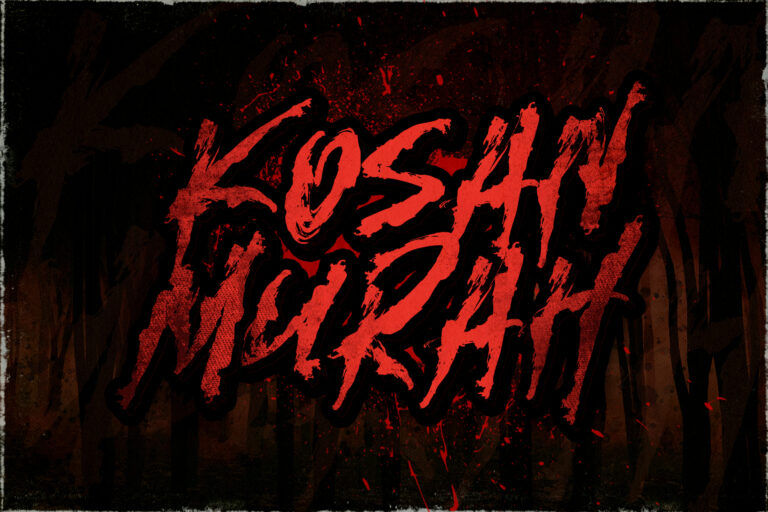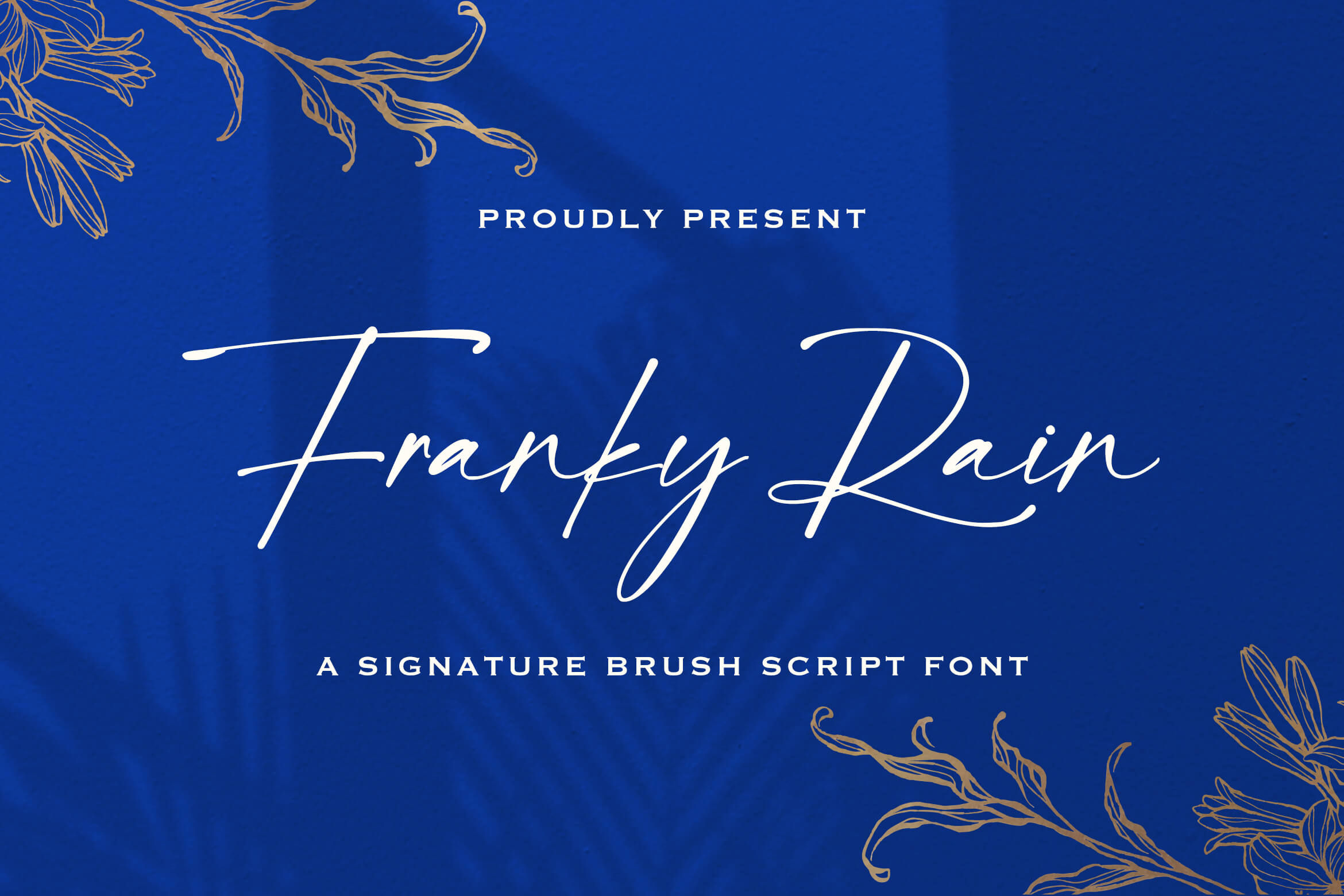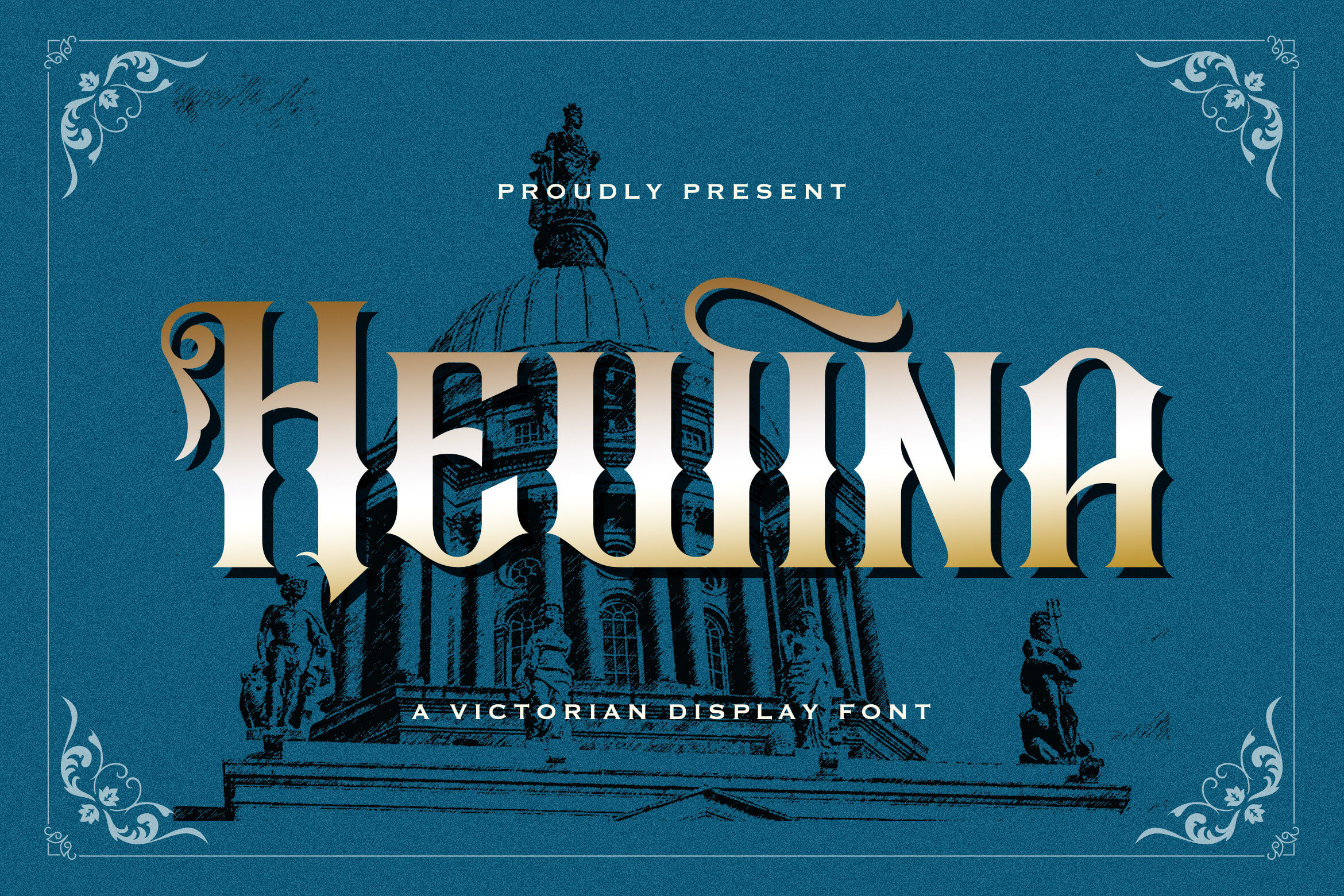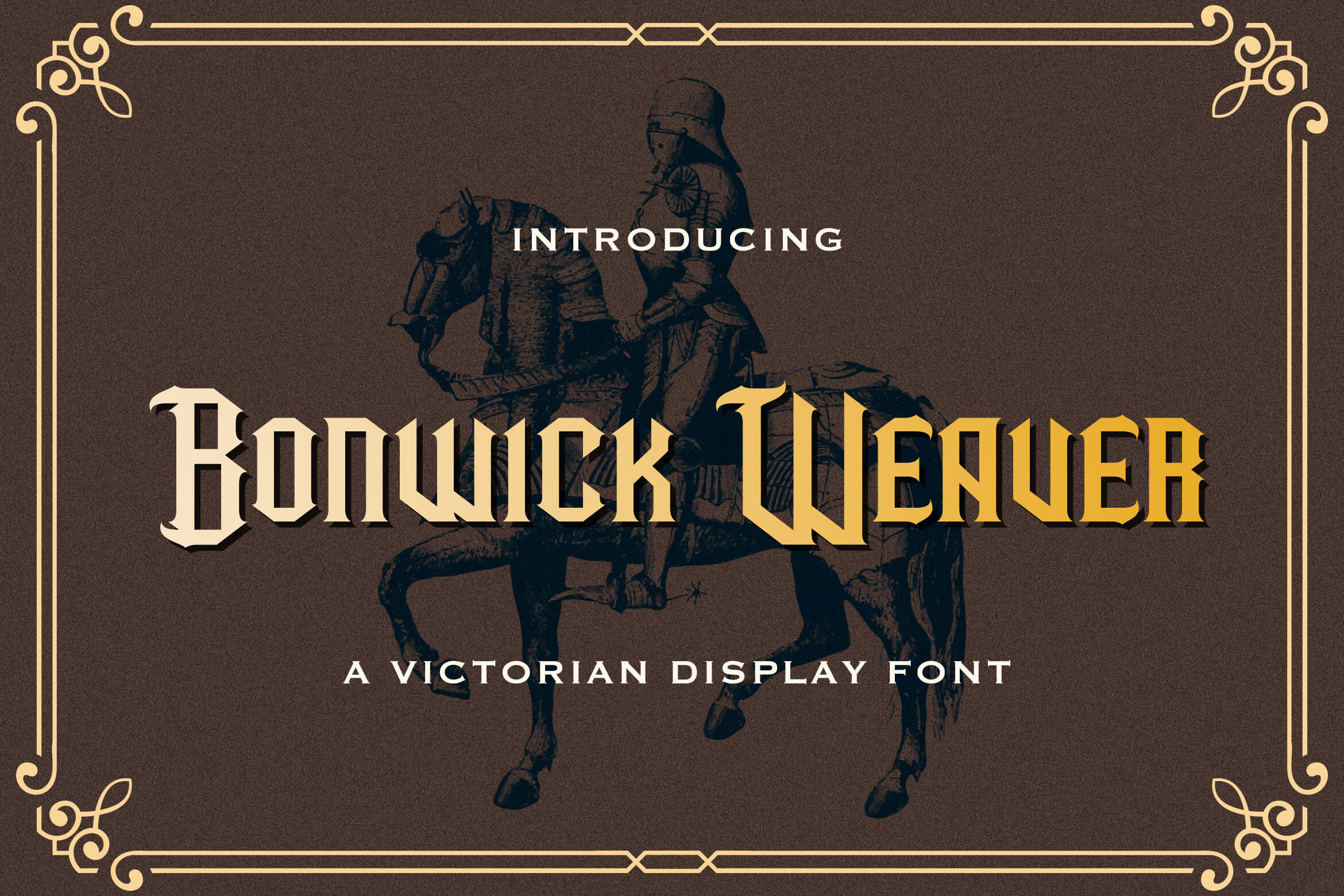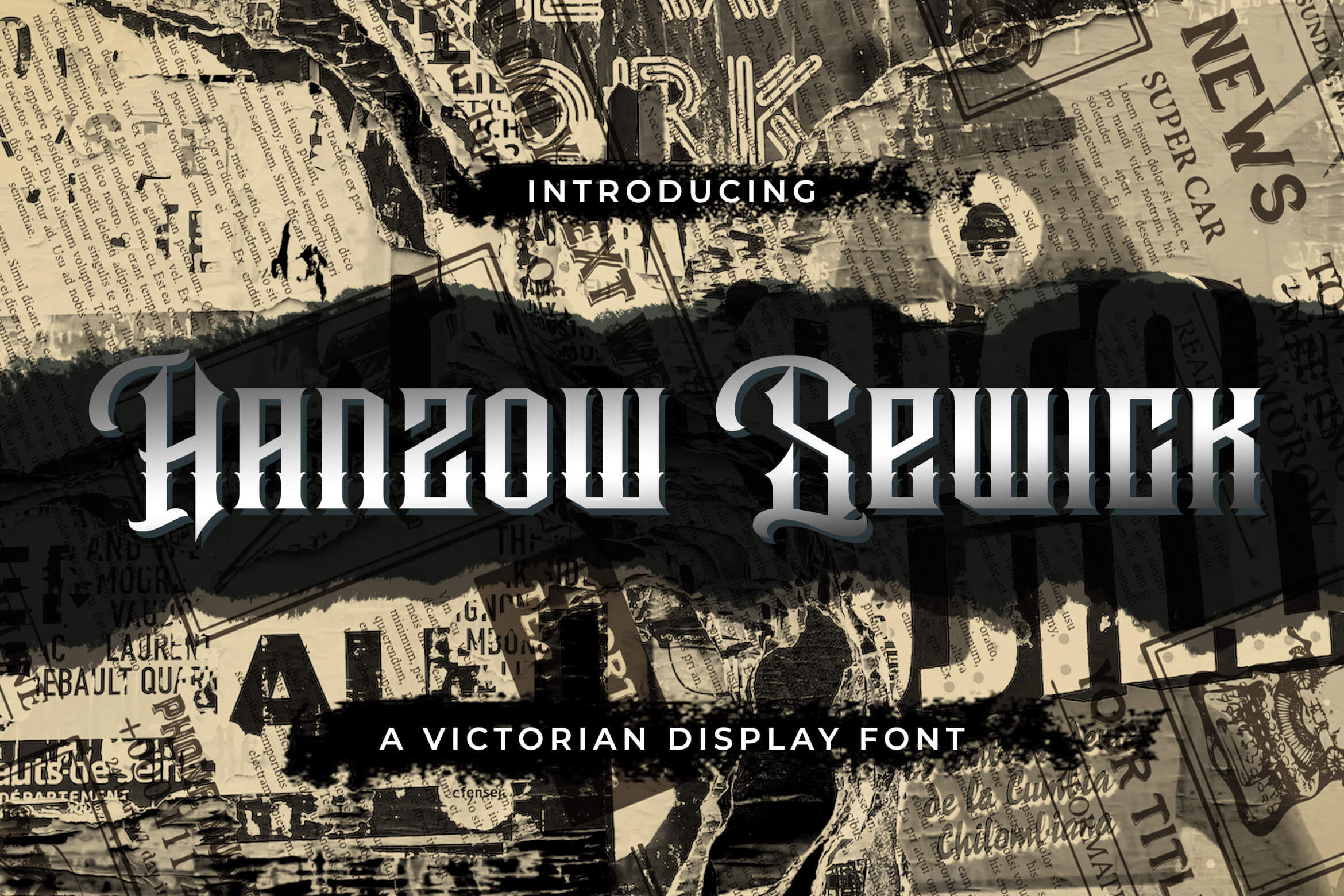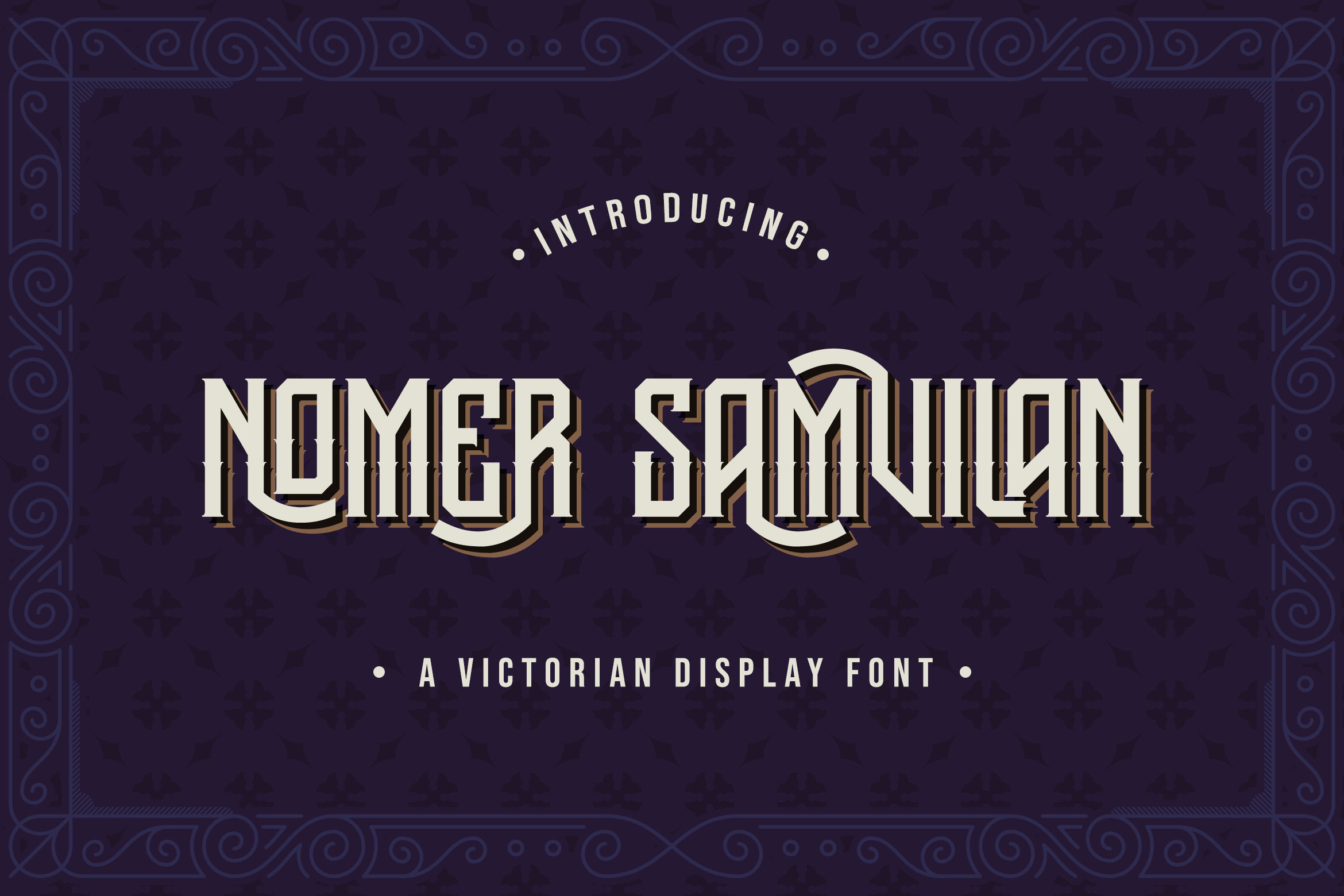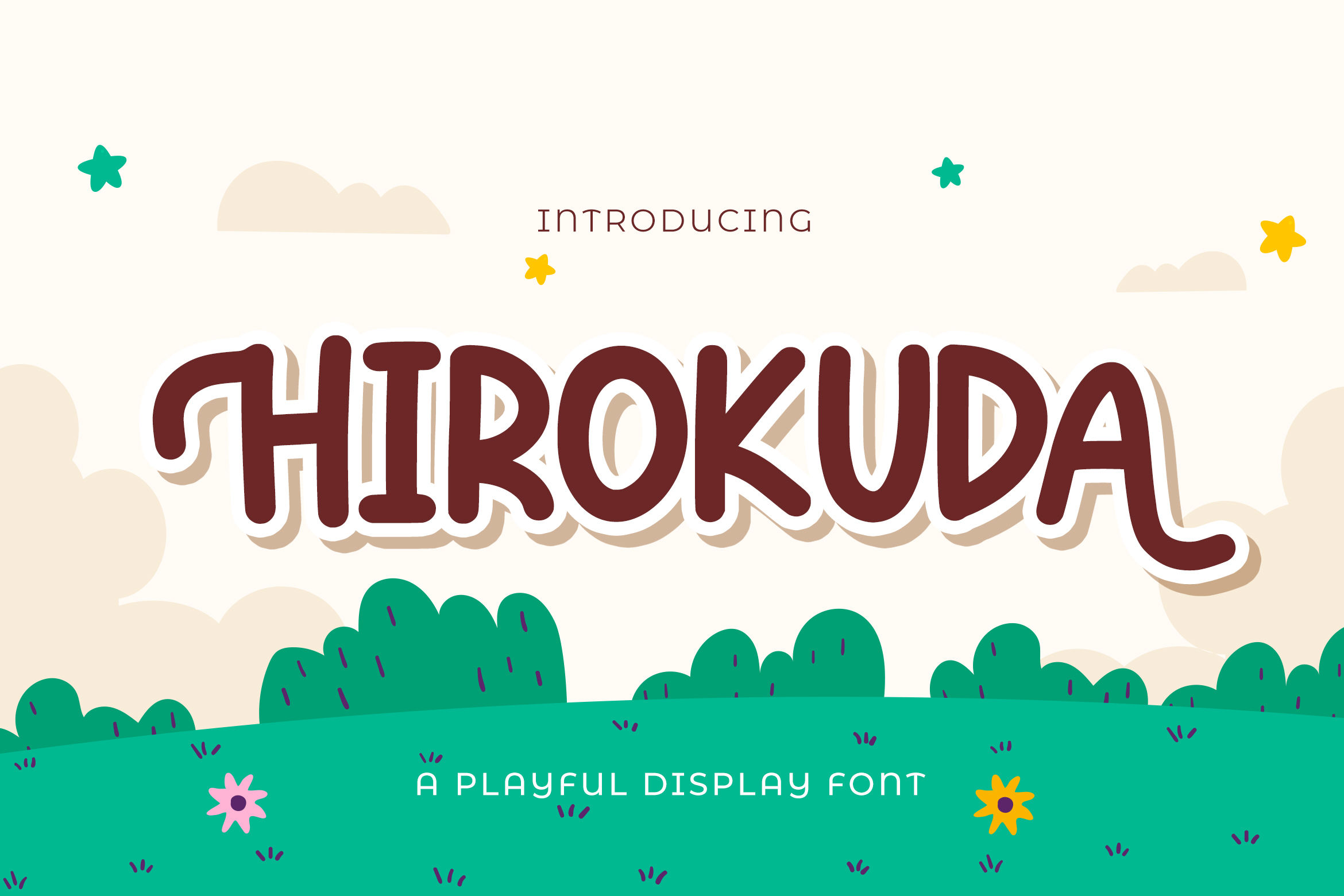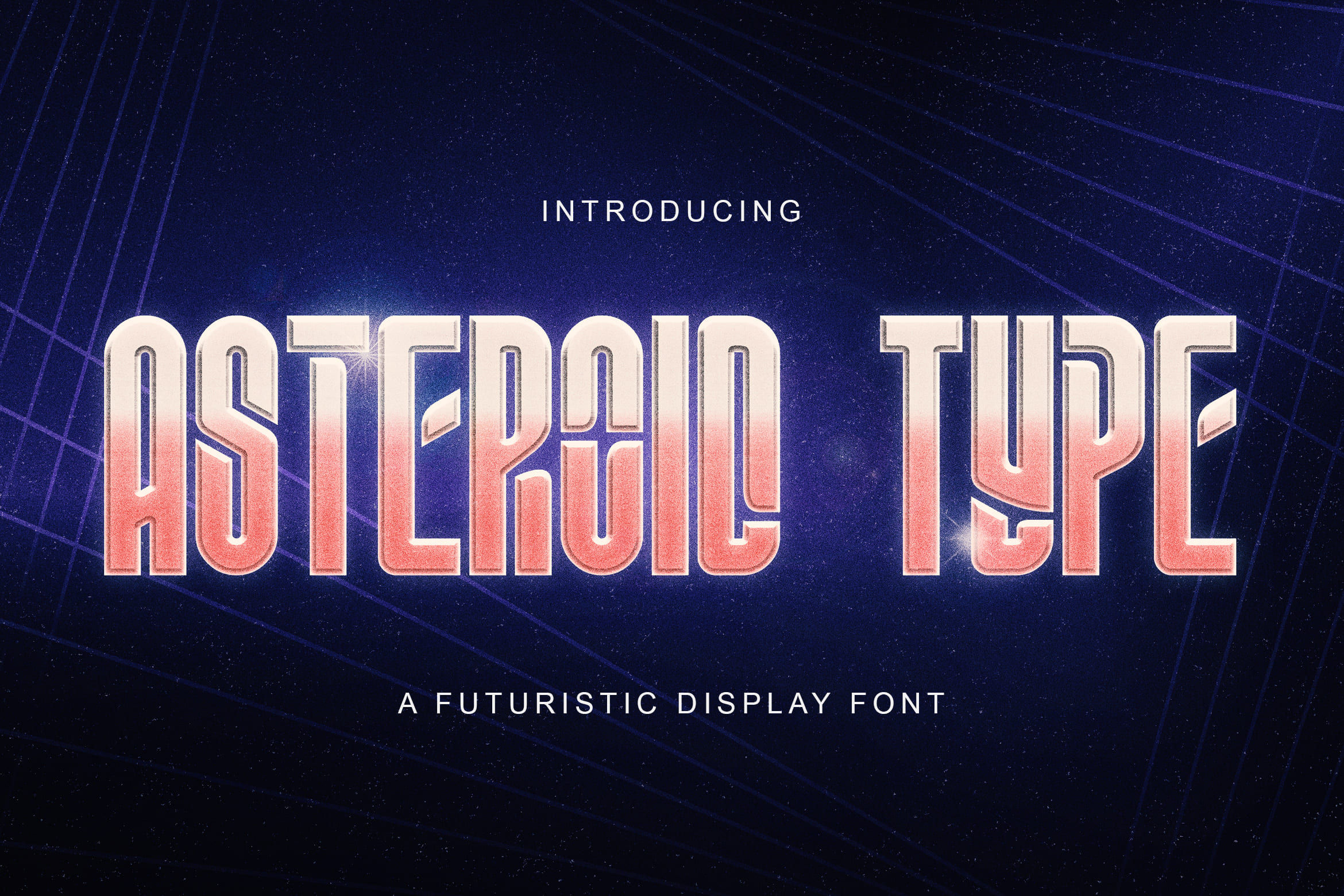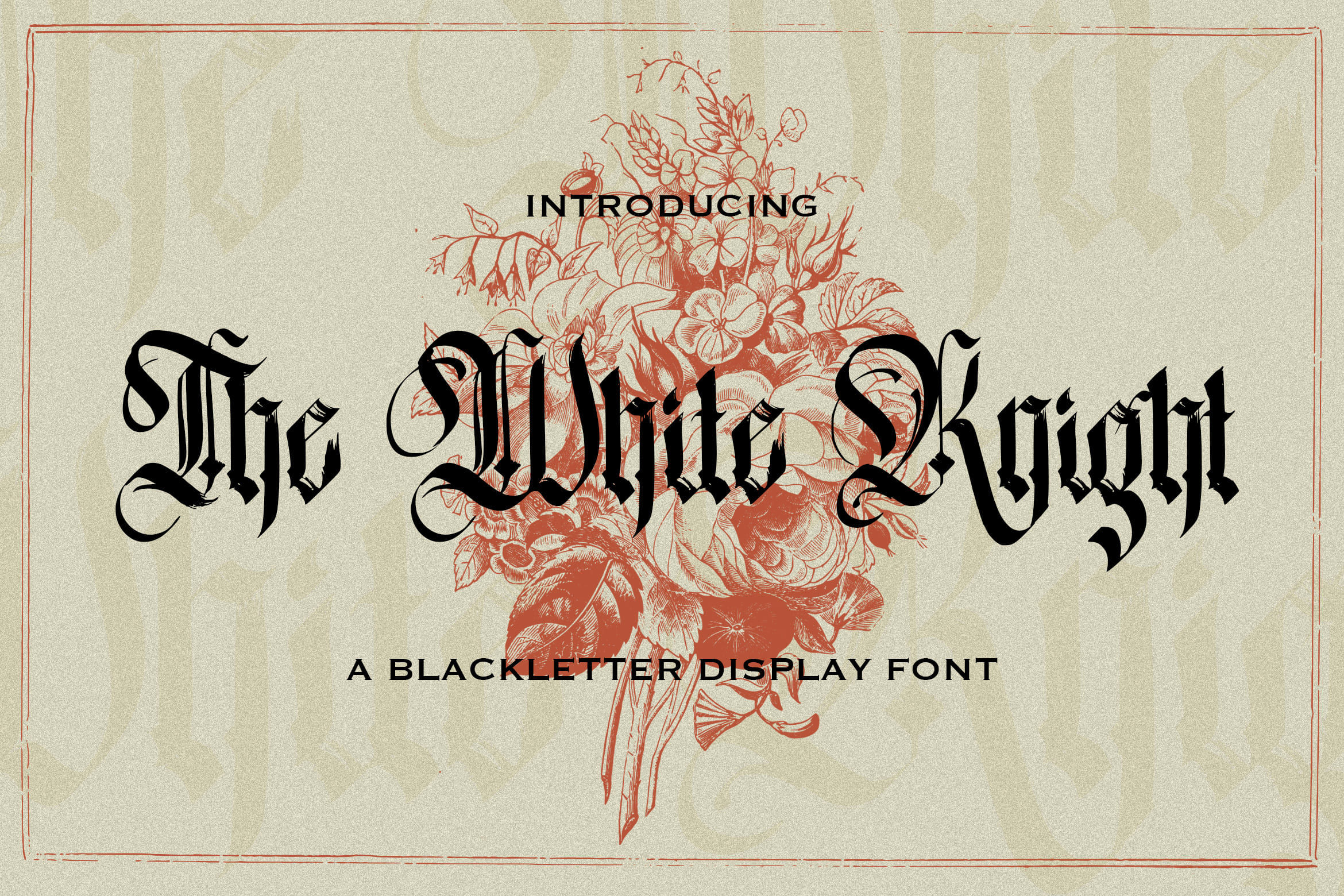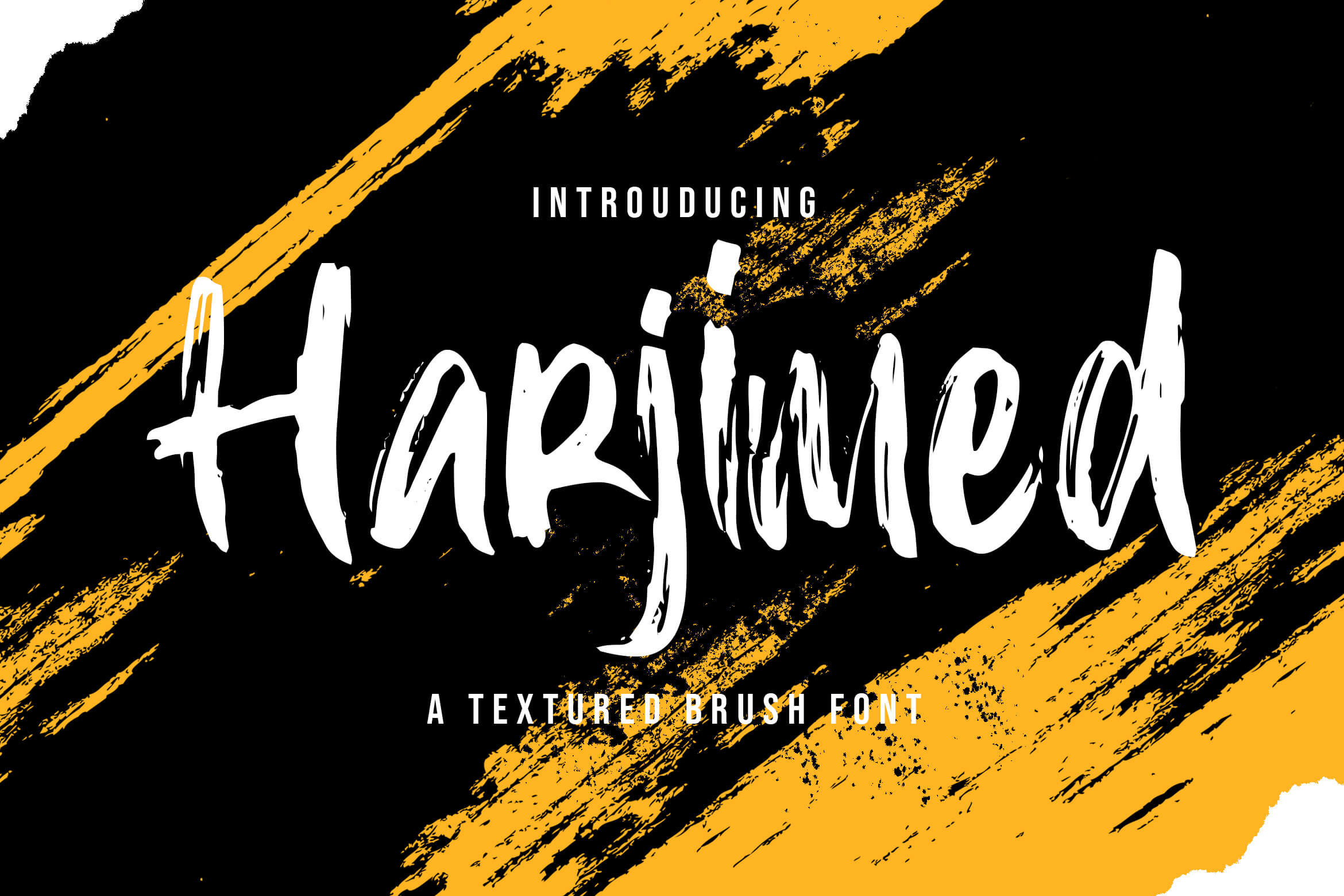
25 Stunning Fonts for Film Posters That Command the Screen
Film posters are often the first impression audiences have of a movie. That’s why fonts for film posters are just as important as the visuals themselves. According to Indiashelf, a film poster depicts what viewers can expect from the film. As a result, it helps create curiosity, build excitement, and encourage people to watch.
Key Takeaways
• Genre-specific typography strengthens emotional storytelling and enhances audience expectations before viewing begins.
• Carefully selected movie poster fonts improve branding consistency across promotional campaigns and media.
25 Best Fonts for Film Posters That Catch Attention
To inspire your next design, we have compiled twenty-five fonts for film posters that will enhance any cinematic project.
Font for Horror Movie Poster
1. Nightmare
Dripping with terrifying suspense, this bleeding typeface projects pure terror instantly because indie slashers and dark psychological thrillers seek visceral impact.
2. Kosan Murah
Unsettling and jagged strokes evoke urban legends and cursed boarding houses as they create an eerie atmosphere that immediately haunts your audience.
3. Jacmax
Heavy, distressed letterforms carved from pure shadow deliver maximum dread so that supernatural horror blockbusters and demonic possession trailers achieve unforgettable visual weight.
4. Nicedreams
Twisted surrealist lines mimic a terrifying descent into madness while they beautifully serve psychological nightmare narratives where reality blurs into pure chaos, and it stands out as one of the cool fonts for posters.
5. Harjimed
Sharp, gothic edges breathe ancient curses onto your key art because occult mysteries and ritualistic horror masterpieces require authentic historical doom.
Font for Sci-Fi Movie Poster
6. Asteroid Type
Futuristic geometric construction echoes deep space exploration and gives your outer-space epic a sleek interstellar aesthetic that captivates tech-savvy audiences.
7. Super Punch
Bold mechanical angles exude high-octane cyberpunk rebellion because dystopian action flicks and robotic warfare sagas demand aggressive futuristic energy.
8. Armygedon
Sturdy stencil silhouettes radiate military precision and post-apocalyptic survival since interstellar combat narratives and alien invasion blockbusters rely on authoritative visual dominance.
9. Super Guardian
Armored metallic glyphs project invincible defense systems as they brilliantly support galactic defender franchises and futuristic space-ranger epics requiring robust typography branding.
10. Cyber Display
Neon-infused digital aesthetics capture synthetic intelligence networks because cyberpunk thrillers and virtual reality hacking adventures demand visually striking futuristic masterworks.
Font for Romance Movie Poster
11. Amy Sauly
This is one of the selected fonts for film posters that delicate handwritten curls with sweet emotional vulnerability to lend an authentic touch of intimacy to heartfelt indie love stories and touching romantic dramas.
12. Franky Rain
Flowing expressive strokes capture bittersweet longing in the rain so that emotional romantic comedies and dramatic tearjerkers feel intensely personal and touching.
13. Tanya Hati
Graceful calligraphy exudes timeless elegance and passionate devotion because sweeping period romances and tragic historical love affairs need incredible emotional depth.
14. Rattfiny
Playful cursive lines radiate modern charm and casual chemistry while they inject delightful energy into contemporary romantic comedies focused on youthful relationships.
15. Toniya Smith
Sophisticated luxury script embodies glamorous romance and high-society affection since upscale romantic dramas feature profound emotional significance and dramatic weight.
Font for Historical Movie Poster
16. The White Knight
Majestic medieval serif proportions project royal authority because epic crusader chronicles and legendary medieval kingdom dramas demand supreme historical authenticity.
17. Hanzow Sewick
Aged wooden textures evoke pioneering colonial struggles and drive historical westerns and dramatic frontier epics with rugged typography that speaks of forgotten eras.
18. Bonwick Weaver